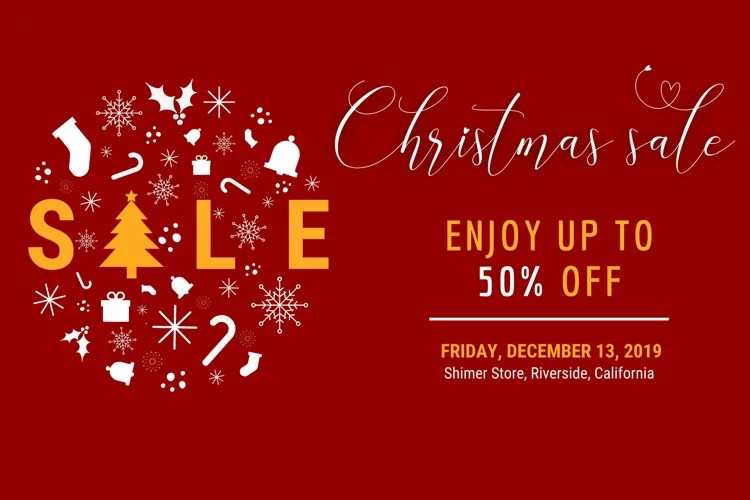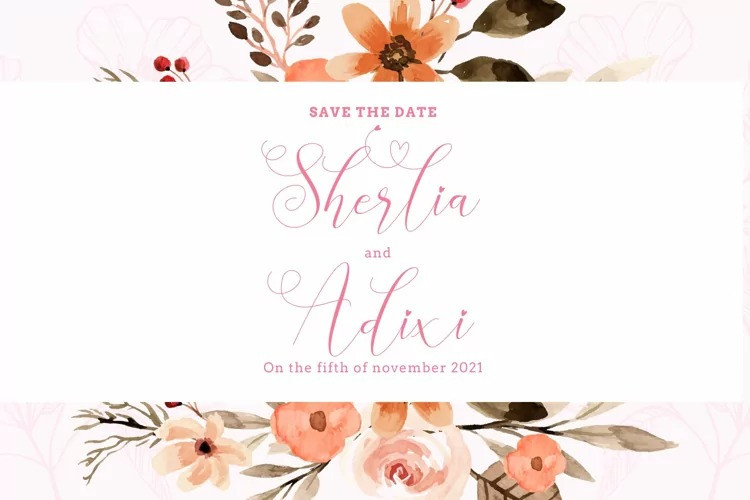
Butter Croissant Script Font
Butter Croissant is a lovely handwriting font with signature style, and a unique name. It was made with a blend of thick and thin lines that connect each other to create a new freshness.
This font will be perfect for many projects that require a minimalist feel such as brochure, business cards, create a logo, product packaging design, screen printing design, signage, title, website and more. Butter Croissant is PUA encoded which means you can access all of the glyphs and swashes with ease.